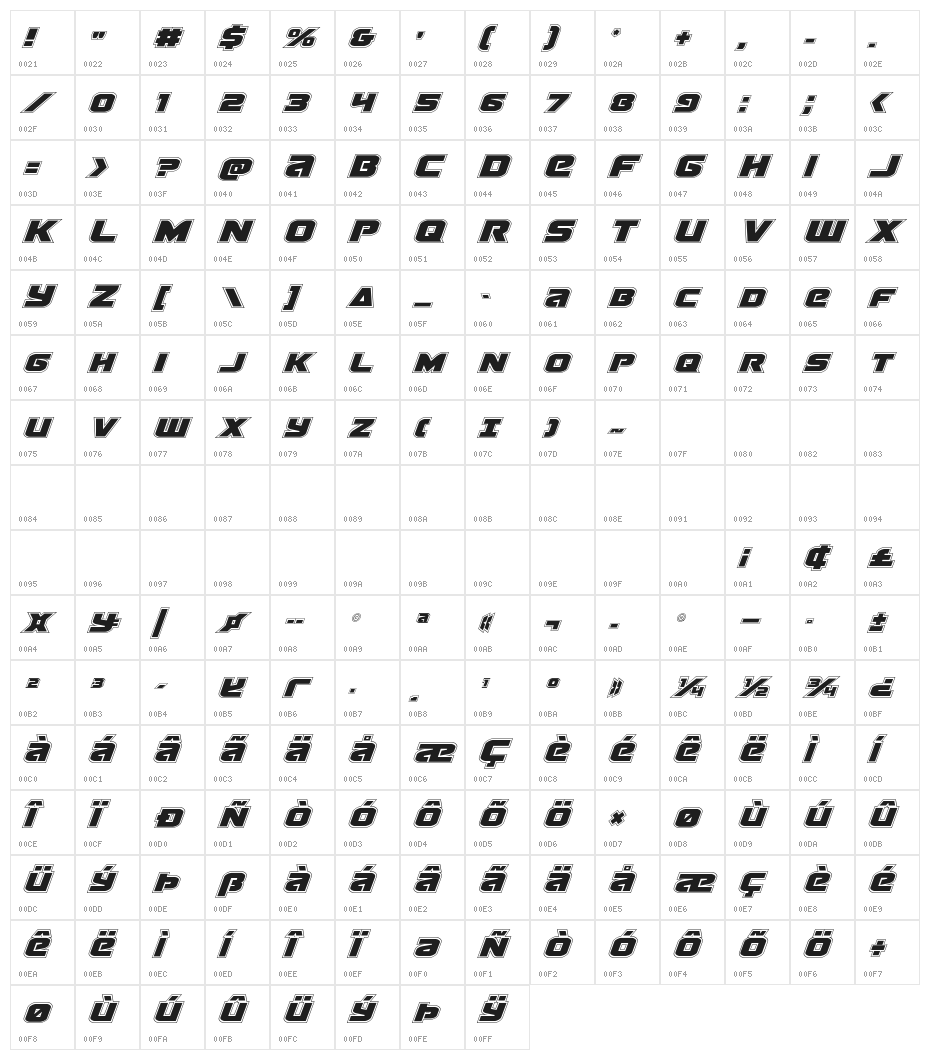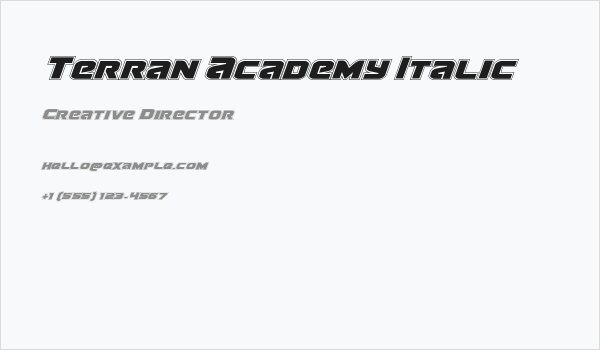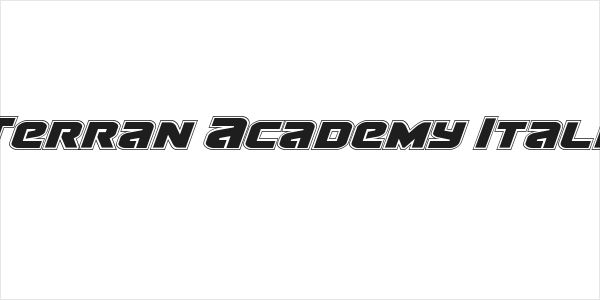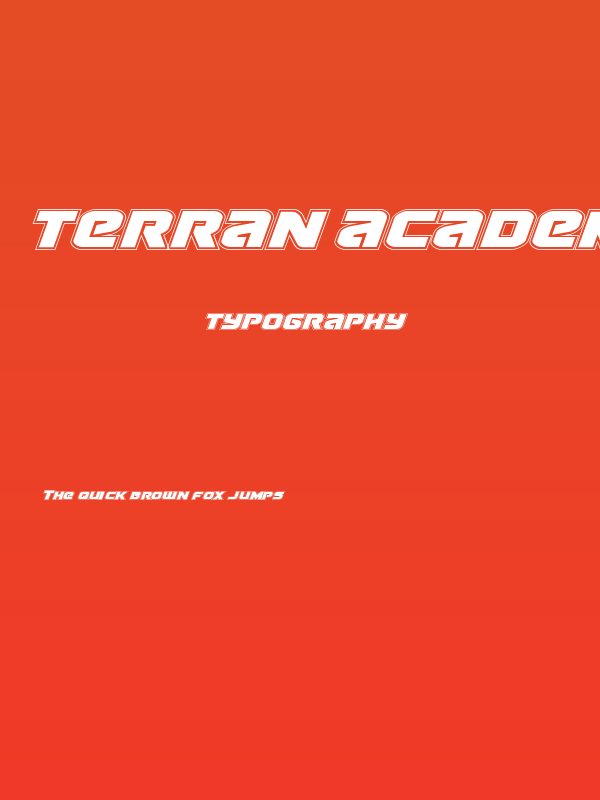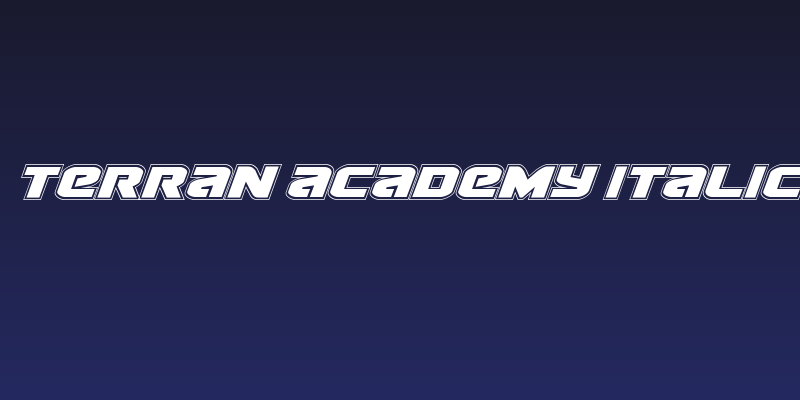
Terran Academy Italic Font
Terran Academy Italic Description
This font features a bold and dynamic style with a futuristic flair. The characters are italicized, giving them a sense of motion and speed. Each letter is outlined with a thick border, enhancing its bold appearance. The design is geometric, with sharp angles and clean lines, creating a modern and sleek look. The numbers and special characters follow the same stylistic approach, ensuring consistency across all elements. This font is ideal for projects that require a strong, impactful presence.
Proposed ProjectsIdeal for sports branding, video game titles, sci-fi themed posters, and dynamic logo designs.